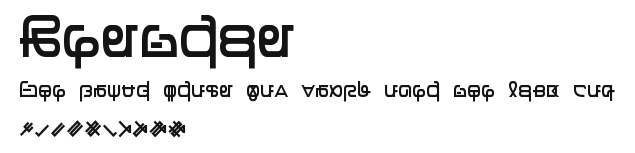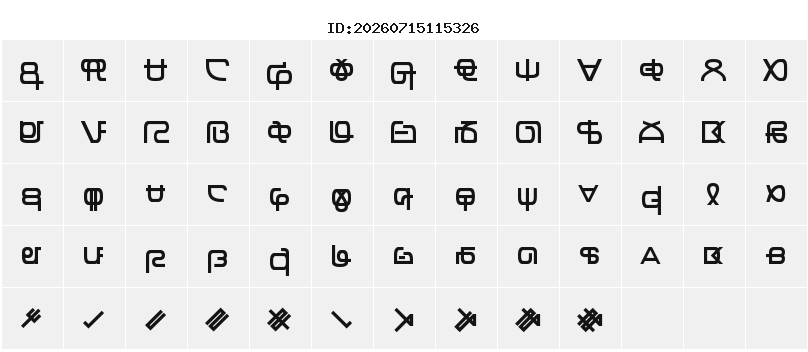
• Font Name: Zentran
• Font ID: Zentran:Version 1.00
• Full Font Name: Zentran
• Version: Version 1.00 April 17, 2013, initial release
• PostScript Name: Zentran
• Copyright: Zentran © (Neale Davidson). 2013. All Rights Reserved
• Designer: Neale Davidson
About Zentran.ttf
Zentran.ttf is a modern, elegant sans-serif font designed for ultimate readability and visual harmony. Perfect for branding, headlines, web design, and print materials.